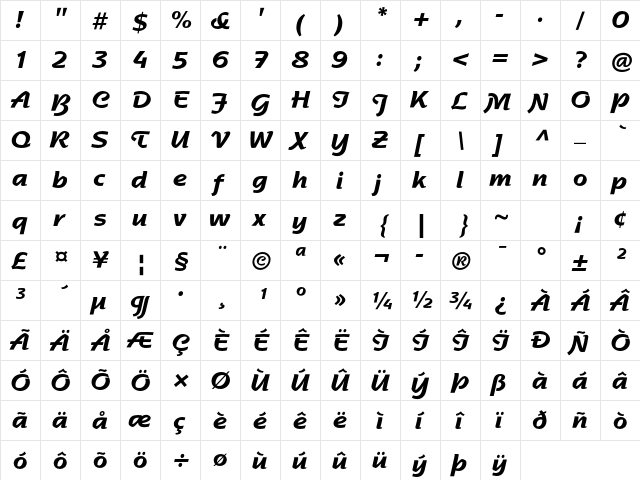
Agfa Nadianne Std Bold Font Preview
Agfa Nadianne Std Bold
Agfa Nadianne Std Bold Font Details
| Foundry | Agfa Monotype Corporation |
Design Context for Agfa Nadianne Std Typeface
Agfa Nadianne Std takes a measured approach to typography — its balanced proportions and neutral character make it a reliable workhorse for both digital and print work. Its bold stroke weight gives it real presence on the page.